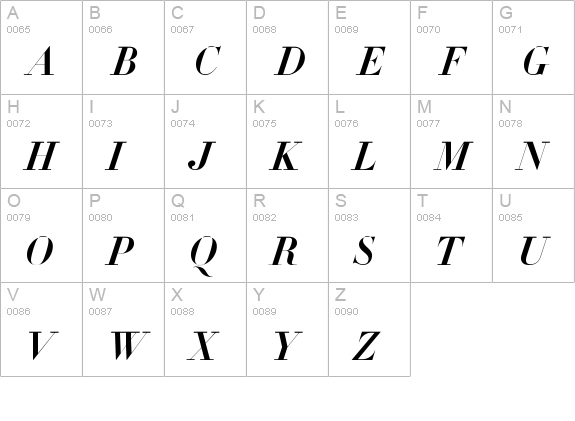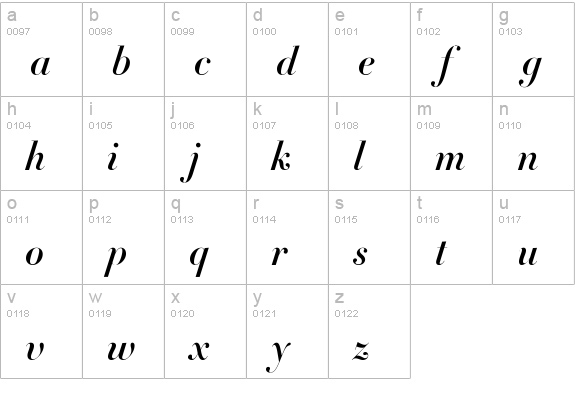
Didot-HTF-B42-Bold-Ital Font Details
Didot-HTF-B42-Bold-Ital is a strong, high-contrast variant in the Didot typeface family \xE2\x80\x94 well suited to headlines, attention-grabbing titles, and strong calls-to-action.
Didot-HTF-B42-Bold-Ital is a striking and elegant font that exudes sophistication and style. With its bold and italicized design, this font is perfect for making a statement and adding a touch of luxury to any design project. The sharp serifs and clean lines of Didot-HTF-B42-Bold-Ital make it a timeless choice for headings, logos, and other design elements that require a strong and eye-catching typeface. The unique combination of boldness and italics in Didot-HTF-B42-Bold-Ital creates a sense of drama and emphasis, making it ideal for projects that demand attention and a touch of flair. Whether used in print or digital media, this font is sure to make a lasting impression on viewers. Best of all, Didot-HTF-B42-Bold-Ital is available for free download at FontsMarket.com, allowing designers and creatives to access this premium font without any cost. So why wait? Add a touch of sophistication and elegance to your designs with Didot-HTF-B42-Bold-Ital today!